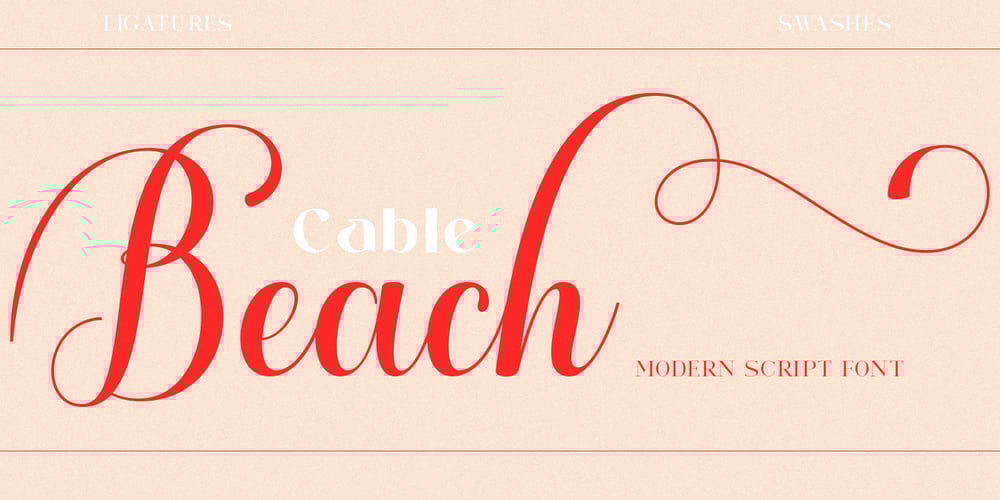
Cable beach
Cable beach font
Cable beach Font Family was designed by khaidir and published by Gatype. Cable beach contains 1 styles and family package options. Cable beach Script is an elegant calligraphy font, it’s casual and pretty. Can be used for various purposes. such as logos, product packaging, wedding invitations, branding, headlines, signage, labels, signatures, book covers, posters, quotes and more. Cable beach Script is encoded with PUA Unicode, which allows full access to all additional characters without having to special design. software. Mac users can use Font Book, and Windows users can use the Character Map to view and copy any additional characters to paste into your favorite text. To enable the OpenType Stylistic alternative, you need a program that supports OpenType features such as Adobe Illustrator CS, Adobe Indesign & CorelDraw X6-X7, Microsoft Word 2010 or a later version. and there are additional ways to access alternatives, using the Character Map (Windows),Nexus Font (Windows), Font Book (Mac) or a software program such as PopChar (for Windows and Mac).If you need any help or suggestions please contact me via email “chaidirgata@gmail.com”Thank you for your purchase!.